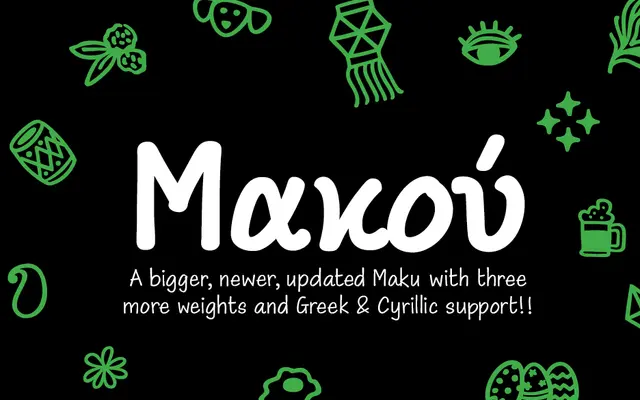
Maku
Mota Italic · Kimya Gandhi · 2017
A hand-drawn Devanagari typeface by Kimya Gandhi with randomised letter alternates, swashes and initial and final forms across four weights and a variable font.
Designed by Kimya Gandhi and first released in 2017, Maku mimics the irregularity of real handwriting by assigning multiple drawn versions to every glyph, which cycle to avoid repeated letter shapes appearing side by side. The Devanagari script is the centrepiece, supported by swash variants, initial and final word forms, and a set of dingbats for supplementary graphic use. Latin, Cyrillic and Greek are also included, and the family spans four weights plus a variable font totalling 3,347 glyphs.
Maku is a handmade-style script typeface primarily designed for Devanagari, with supporting Latin, Cyrillic and Greek scripts. Its hand-drawn character and use of randomised alternates place it firmly in the handwritten script category.